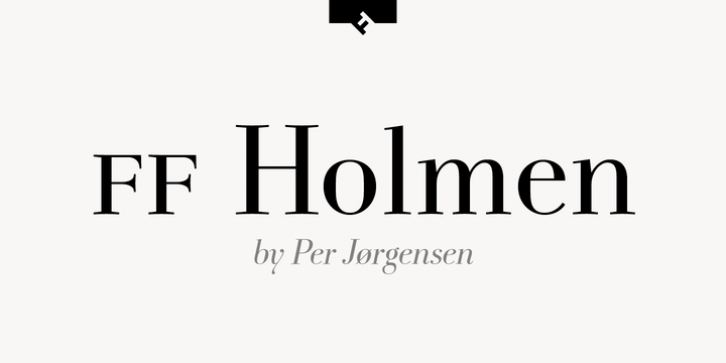
FF Holmen downloadDesigner: Per Baasch Jørgensen
Publisher: FontFont
Danish type designer Per Jørgensen created this serif FontFont in 2007.
The family has 5 weights, ranging from Regular to Bold (including italics) and is ideally suited for book text, festive occasions as well as editorial and publishing.
FF Holmen provides advanced typographical support with features such as ligatures, small capitals, case-sensitive forms, fractions, and super- and subscript characters.
It comes with a complete range of figure set options – oldstyle and lining figures, each in tabular and proportional widths.